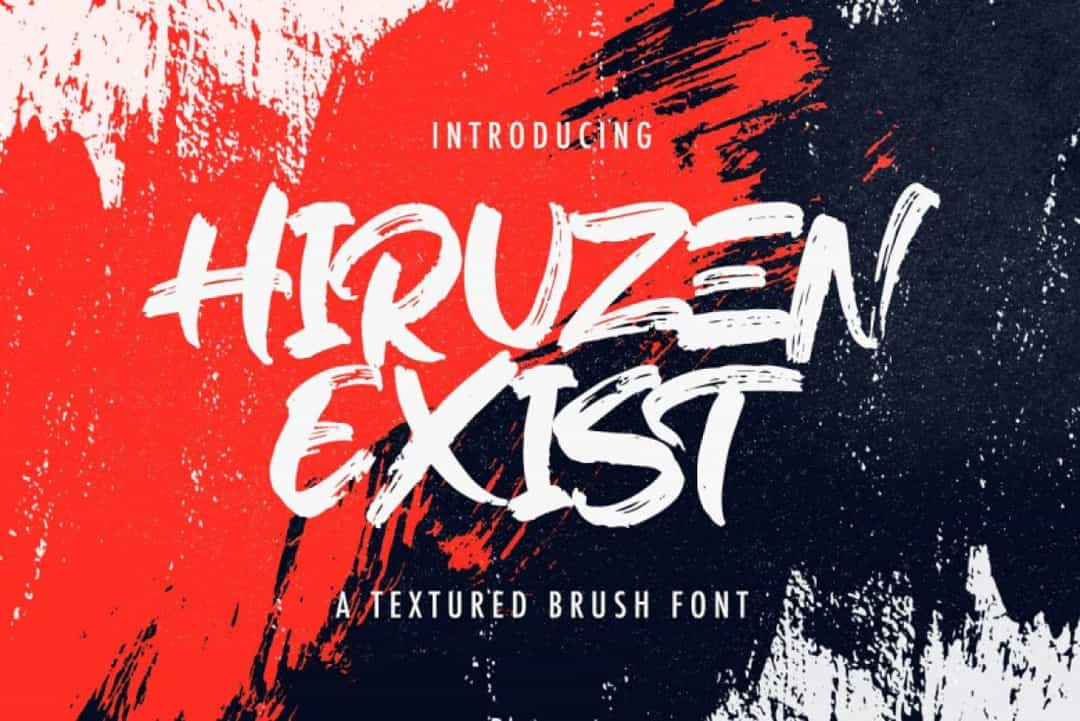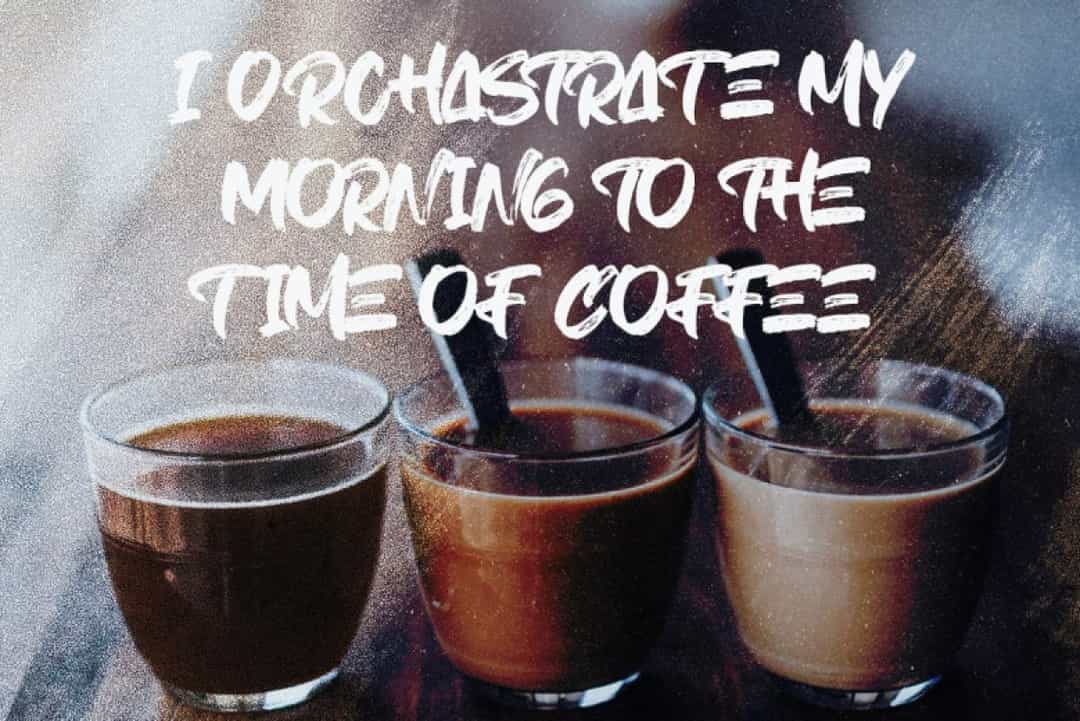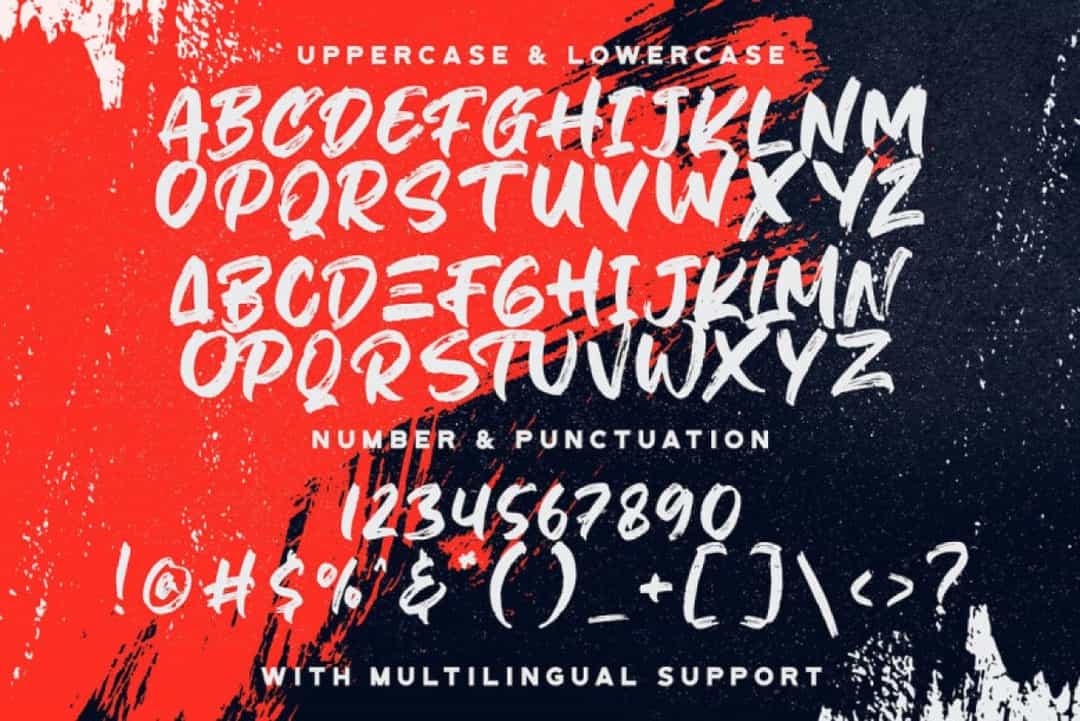
Hiruzen Exists Textured Brush Font is a handwritten script with textured typeface. Take inspiration from its gorgeous style and incorporate it into your designs!